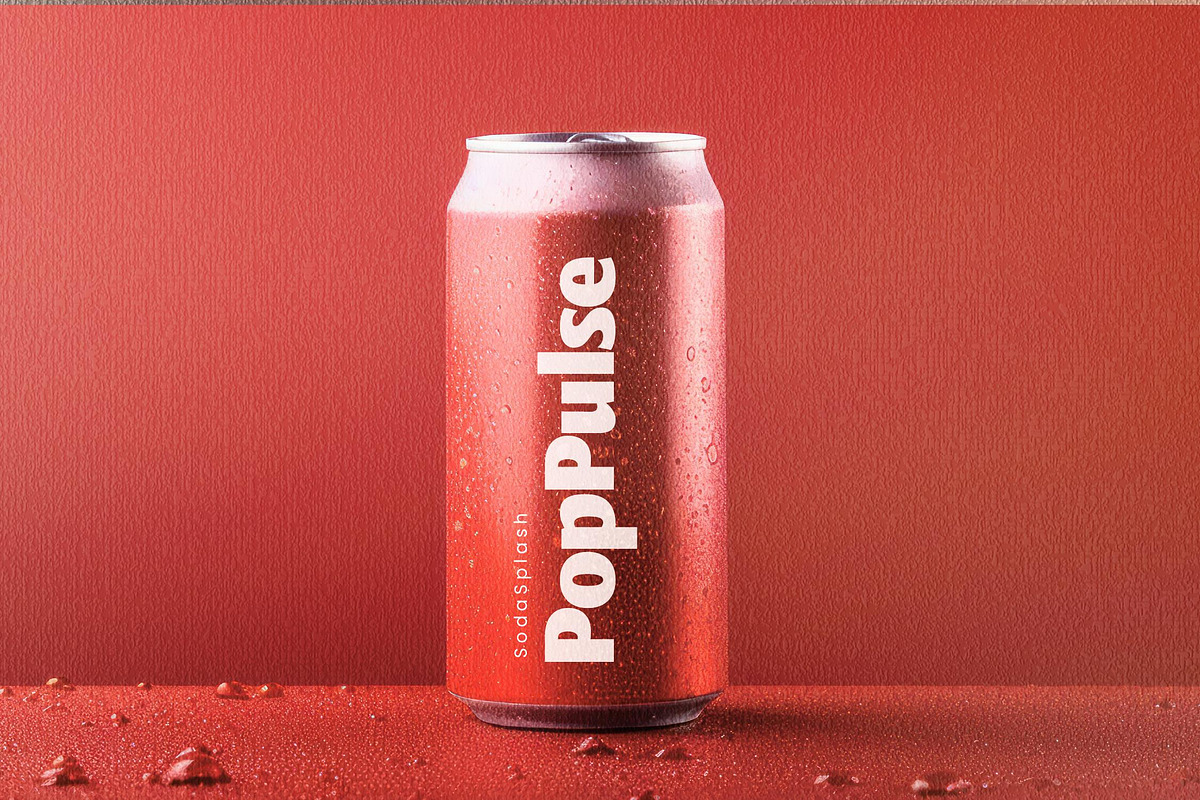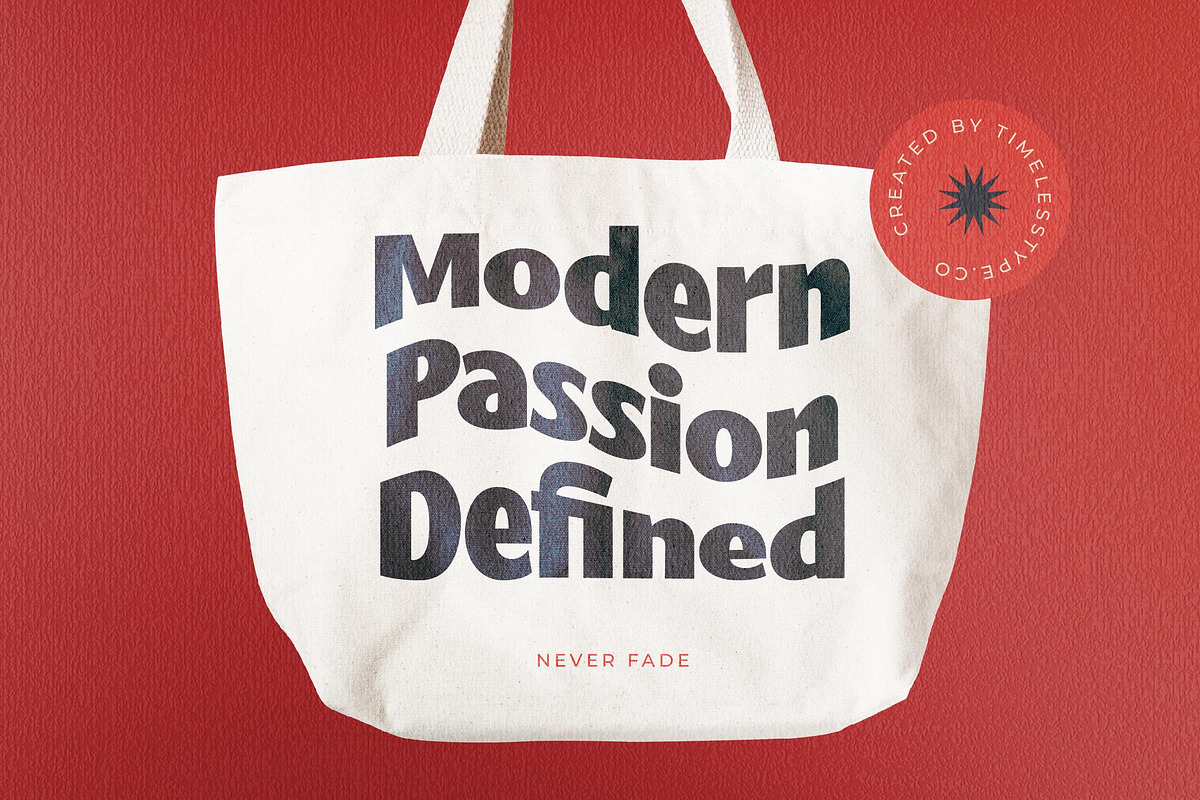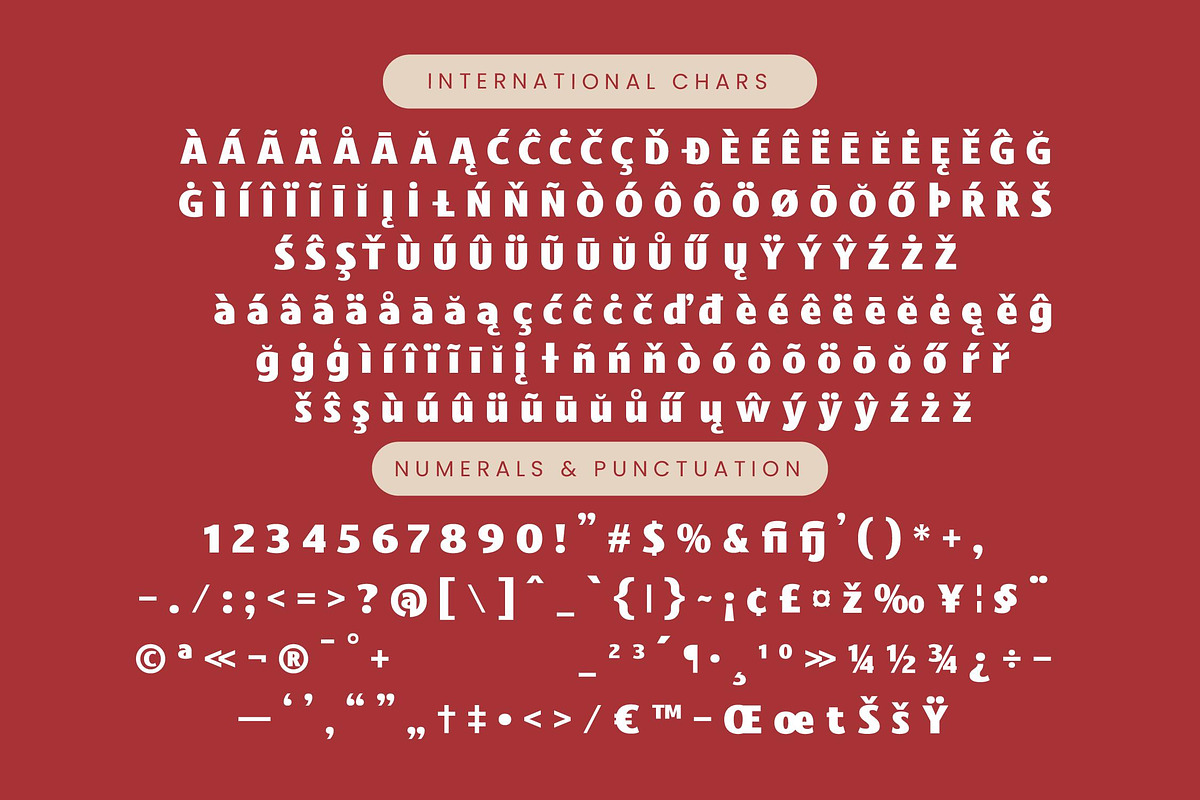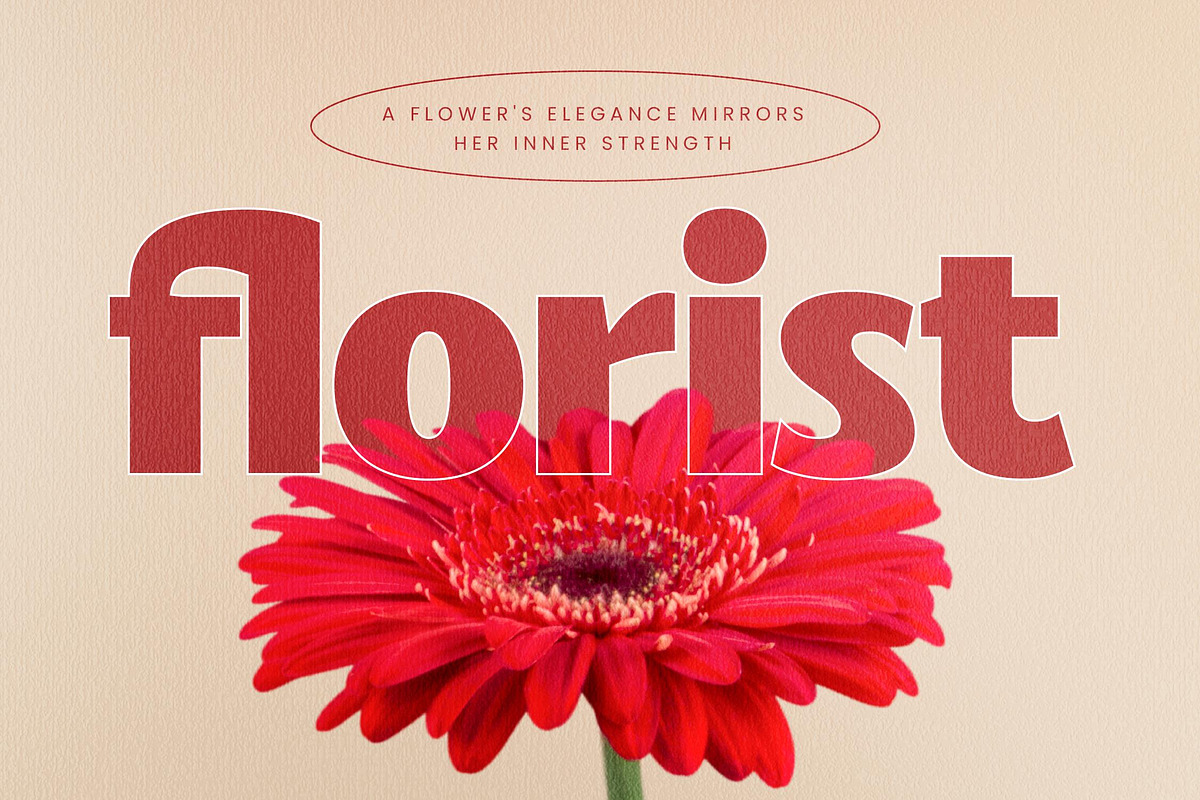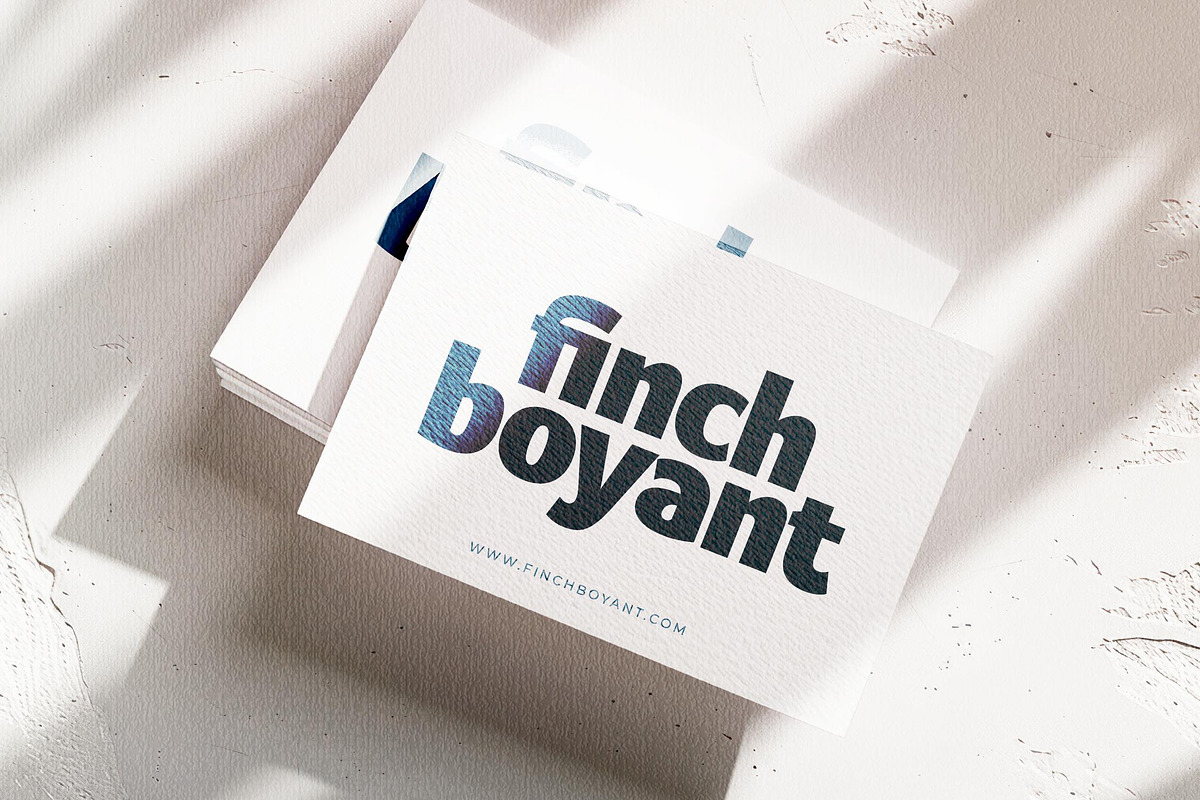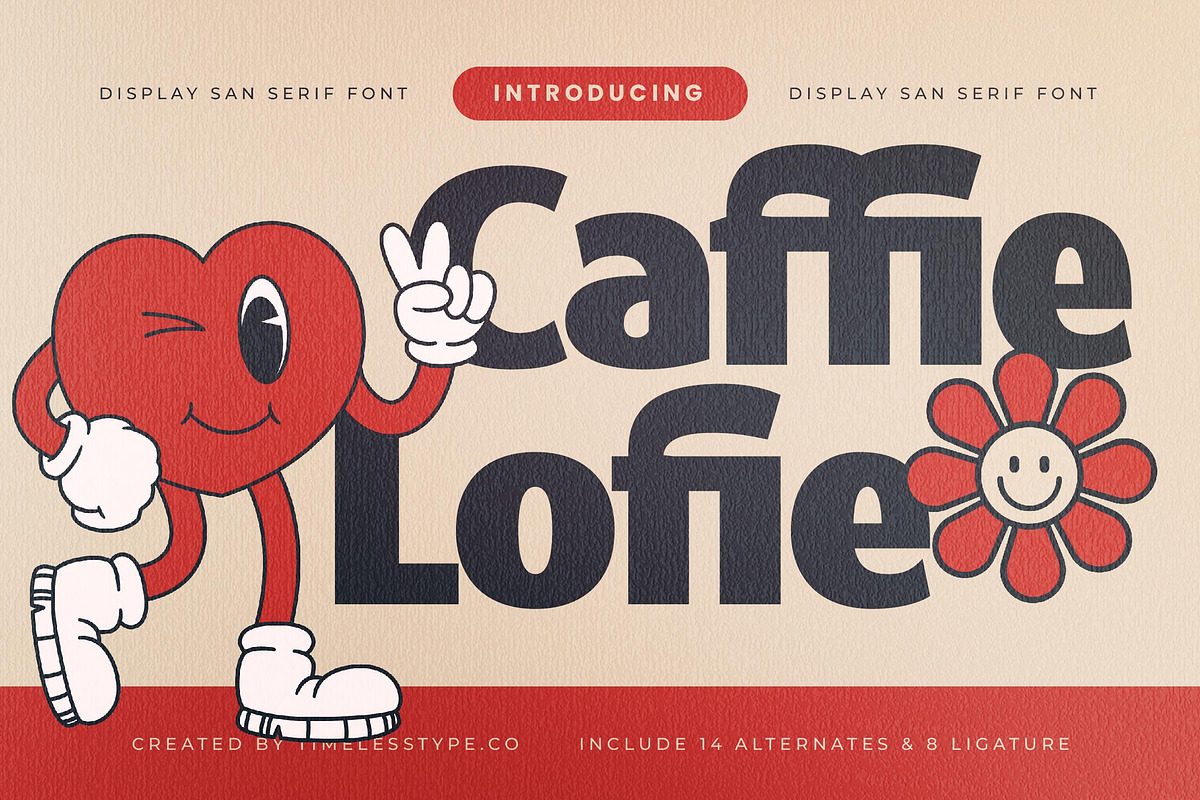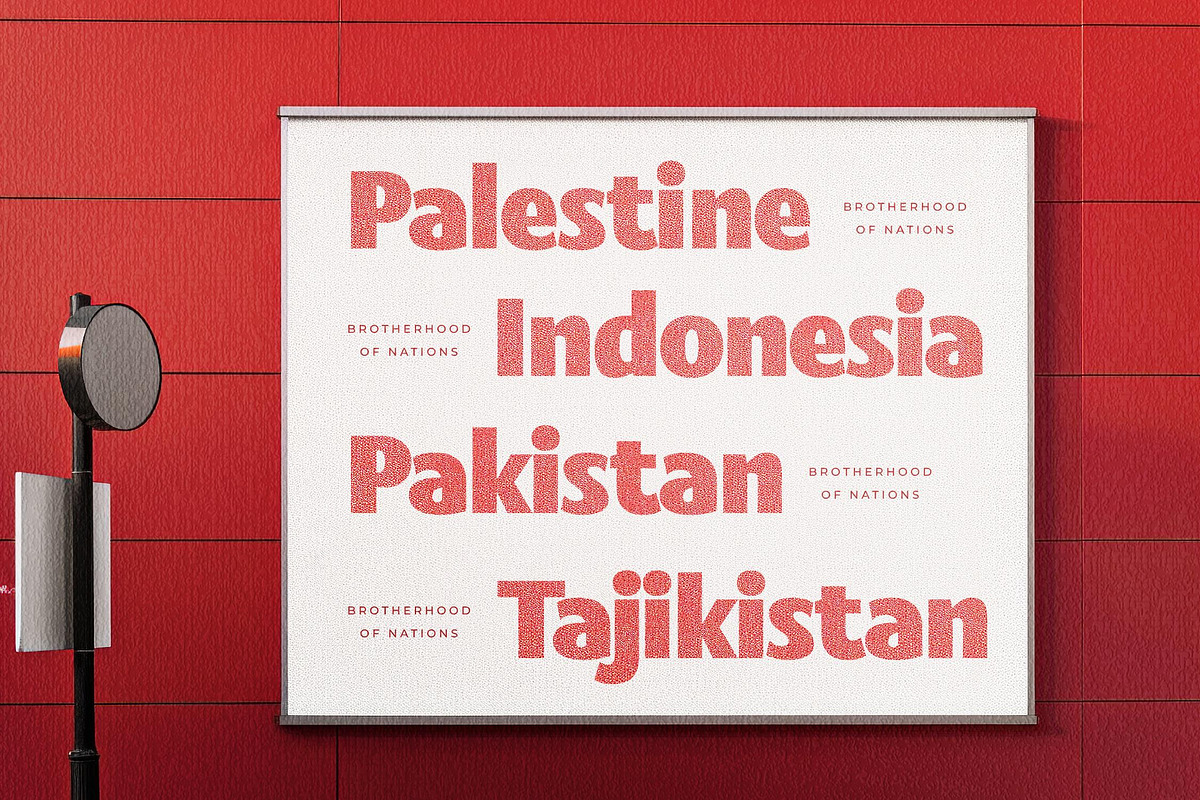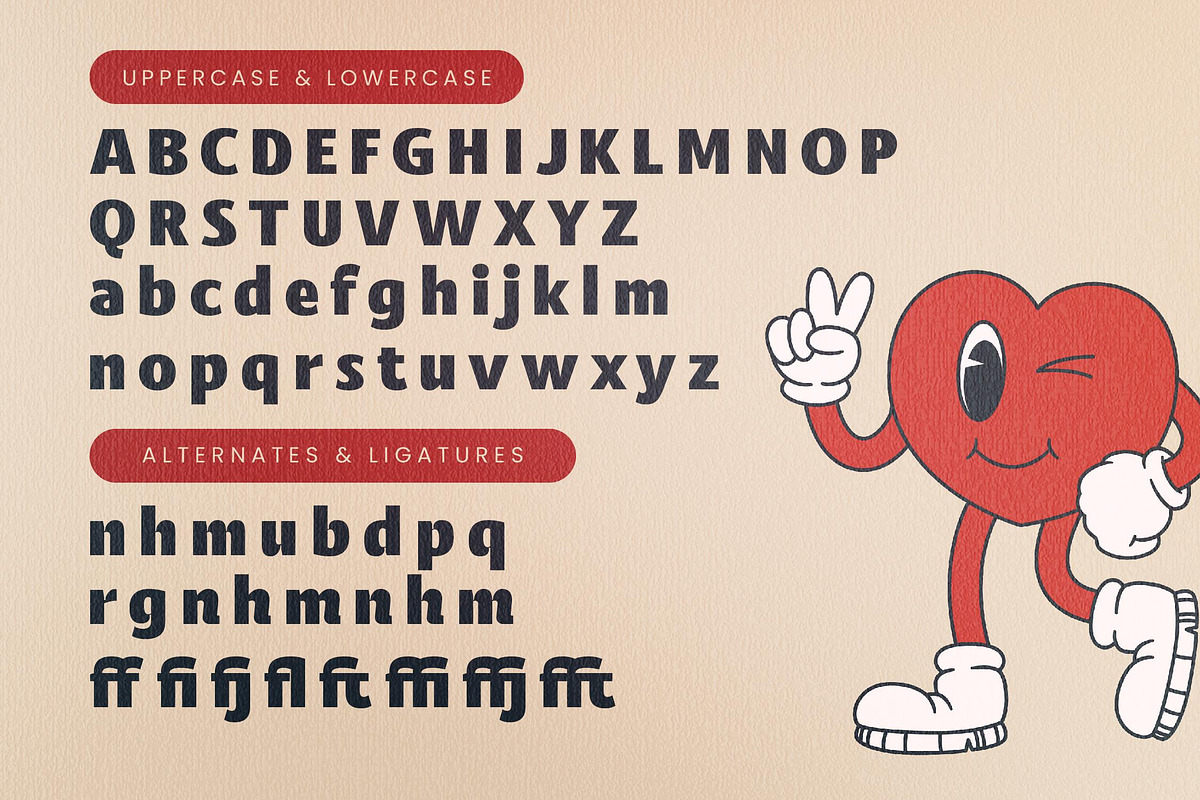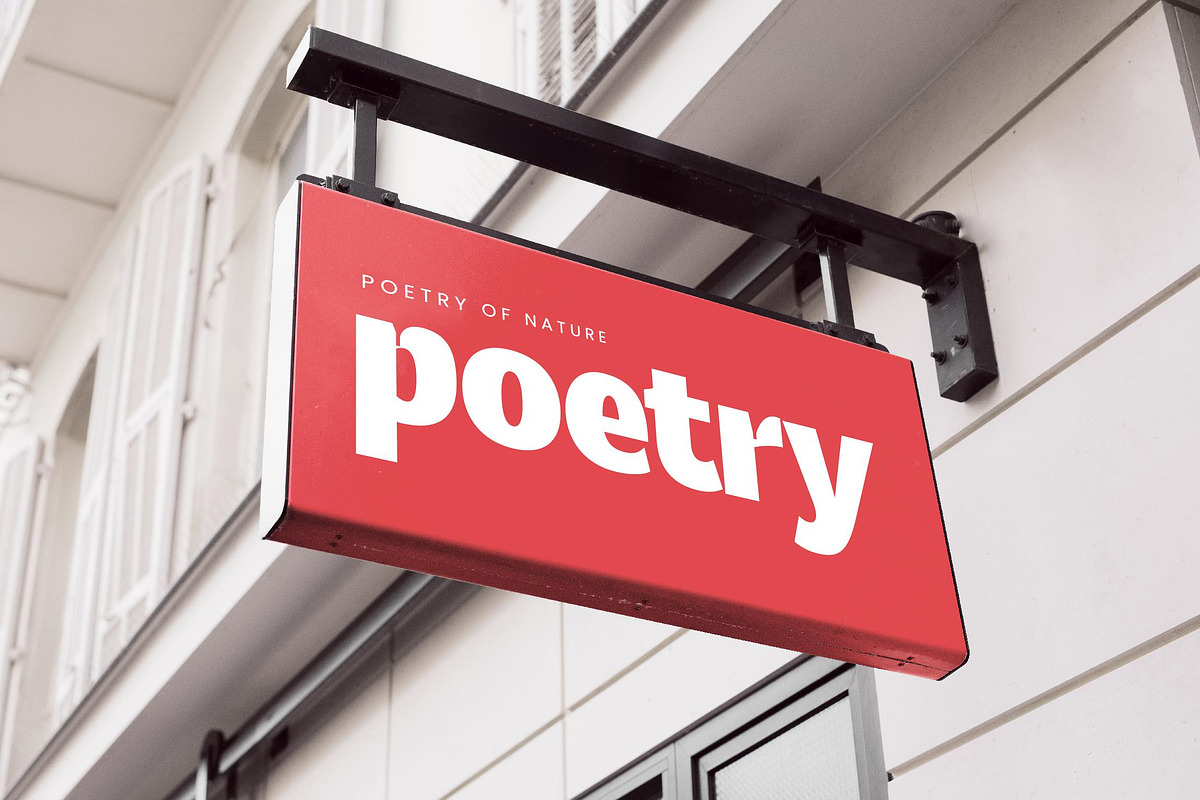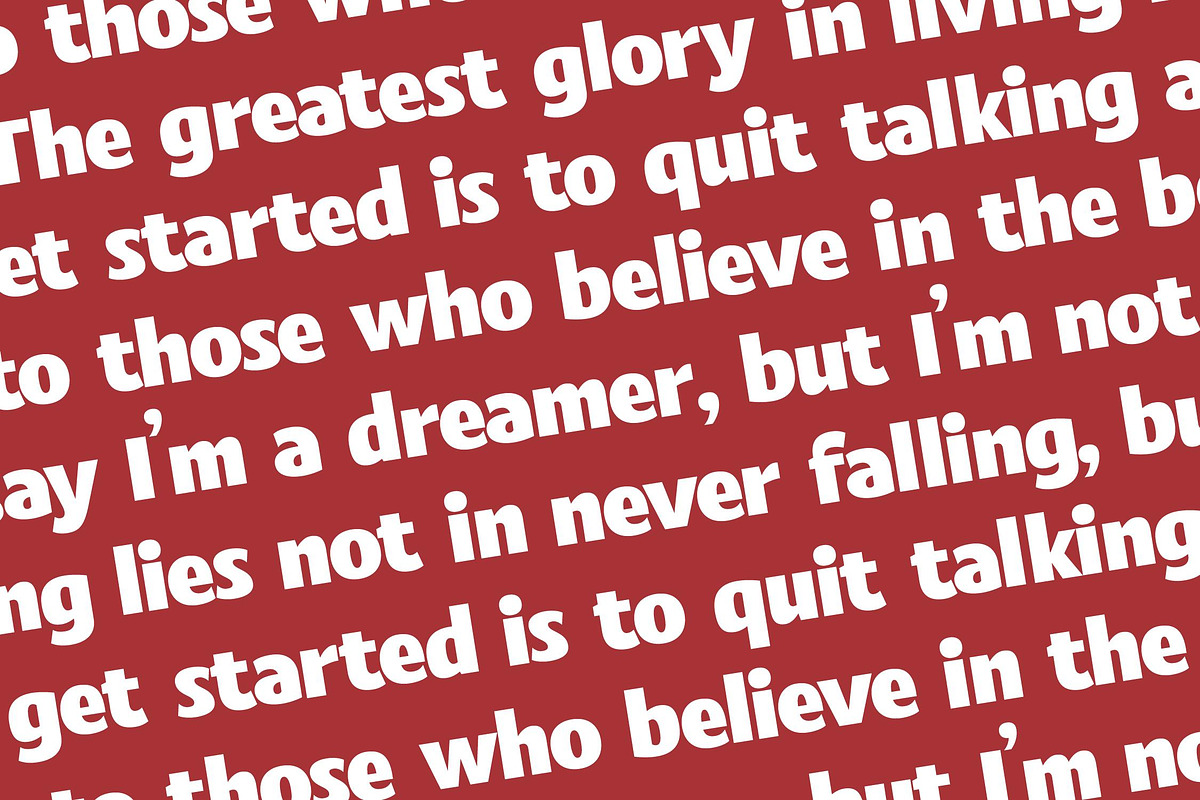
Caffie Lofie Retro Sans Serif
Caffie Lofie is a vibrant explosion of retro energy designed to bring a soulful, rhythmic pulse to your next creative masterpiece. This typeface balances bold weights with a whimsical silhouette, ensuring that your message is not just seen, but truly felt.
The aesthetic roots of this collection reach back to the playful charm of rubber hose animations and the funky, hand-lettered signage of the 1970s. It captures a specific nostalgia that feels both timeless and perfectly suited for the bold, illustrative styles dominating current design landscapes.
Boasting a heavy-duty personality, this modern serif display offers an undeniable branding impact that transcends standard layouts. While it functions with the grace of luxury typography, its soul is that of a high-energy editorial font that avoids the coldness of a typical high-contrast serif.
As designers move toward more organic and expressive shapes, this font hits the peak of the modern serif trend by offering a playful alternative to traditional faces. It stands out among editorial display fonts as a definitive choice for character-driven typography that demands a second look from every viewer.
This typeface is ideally suited for standout logo design and comprehensive branding systems that require a touch of vintage charisma. From bold product packaging and creative editorial spreads to high-end fashion lookbooks or even a quirky wedding suite, it provides the versatility needed for premium results.
The technical craftsmanship behind the font includes a rich array of ligatures and alternates that allow for custom typographic flourishes. With extensive multilingual support and a full suite of international characters, it is ready to take your creative vision to a global stage with ease.
- Ligature 8 Alternate 14